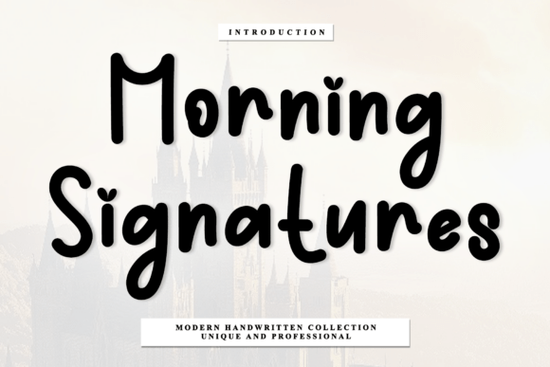
When you are designing brand marks or preparing files for print-on-demand, relying too heavily on formal typefaces often makes your work look corporate and cold. A personal, hand-lettered touch bridges that gap instantly. That is exactly why Morning Signatures Font has become a go-to selection for creators who want their projects to feel approachable yet polished. Every character carries a subtle wax-seal elegance without sacrificing readability, which means you do not need to spend hours adjusting kerning before hitting export.
What Makes This Script Stand Out From Other Handwritten Options?
Most signature-style typefaces either lean too messy or become difficult to read at smaller sizes. Morning Signatures strikes a careful balance between loose brush strokes and controlled letterforms. The x-height remains consistent, so your text blocks stay grounded even when you mix it with decorative elements. You can use it for morning-themed coffee shop branding, wedding invitation suites, or quote graphics for social media. Because the stroke weights shift naturally, adding just three to five words creates a complete focal point without overwhelming the layout. Many crafters also appreciate how it scans cleanly for Cricut or Silhouette cuts, making it reliable for sticker sheets and vinyl decals.
Which Fonts Should I Test Before Finalizing My Layout?
Mixing two handwritten styles usually creates visual clutter, so pairing works best when you contrast soft signatures with structured or lightly playful alternatives. If you need something cozier for children’s products, exploring options like Snuggle Bunny provides a rounded, friendly counterbalance. For projects requiring slightly more structure without losing personality, a gentle slant like Happy Sticks keeps things tidy while maintaining a handmade vibe. Designers working on modern or lifestyle brands often pair the main sign-off with clean geometric sans-serifs, but if you prefer to stay entirely within the script category, trying out Future Lane gives a streamlined, contemporary feel. When working with baby or nursery themes, Baby Boy delivers soft curves that complement the elegant flow of signatures nicely. Finally, Kari Sea offers a breezy, coastal rhythm that pairs well with beach-themed apparel or travel journals. Testing these combinations in your actual design software quickly reveals which pairing communicates your intended mood most clearly.